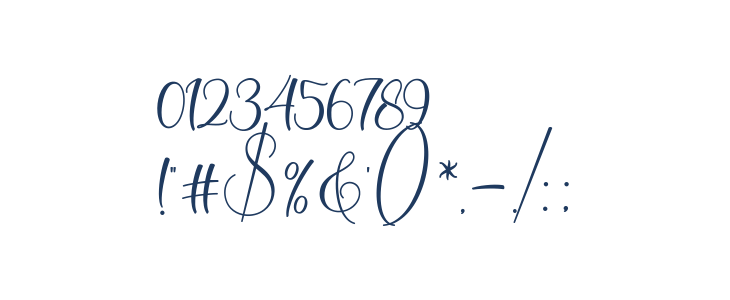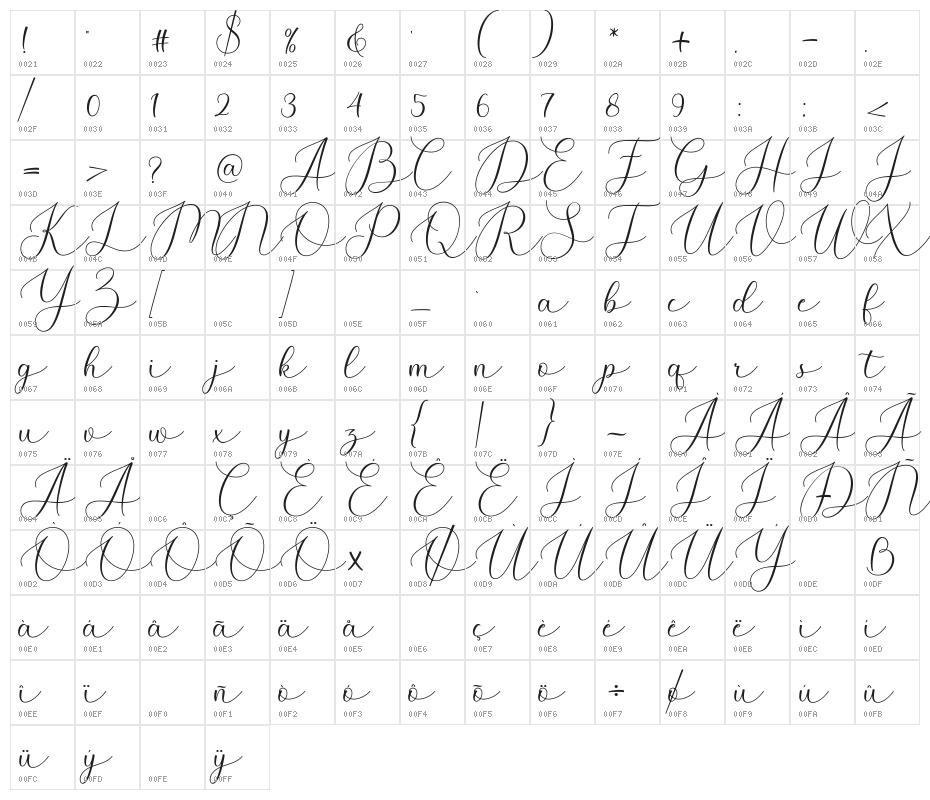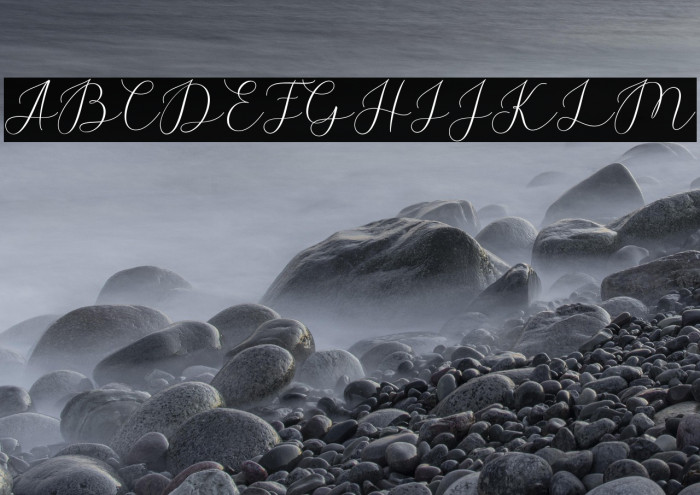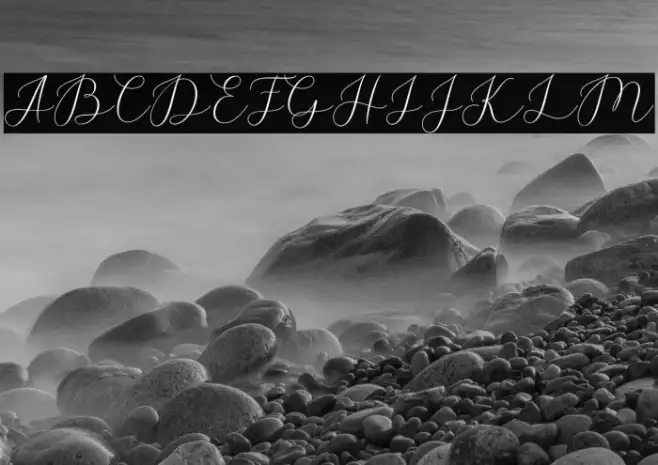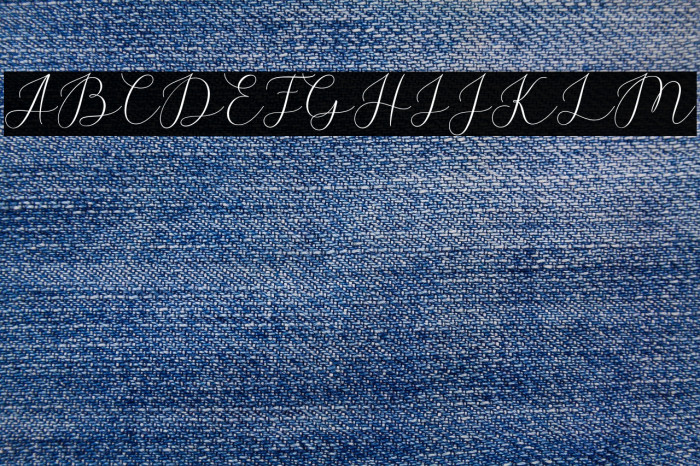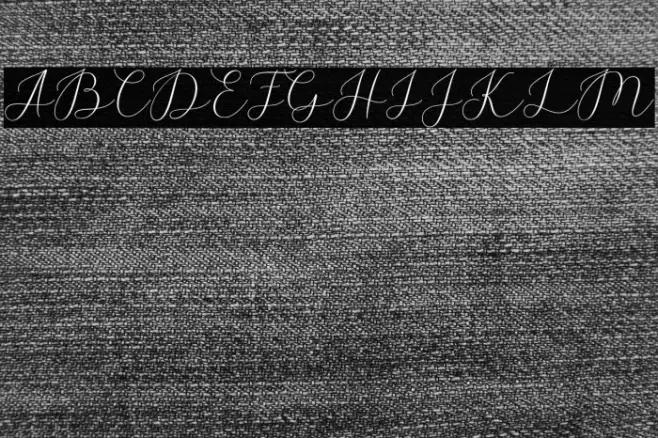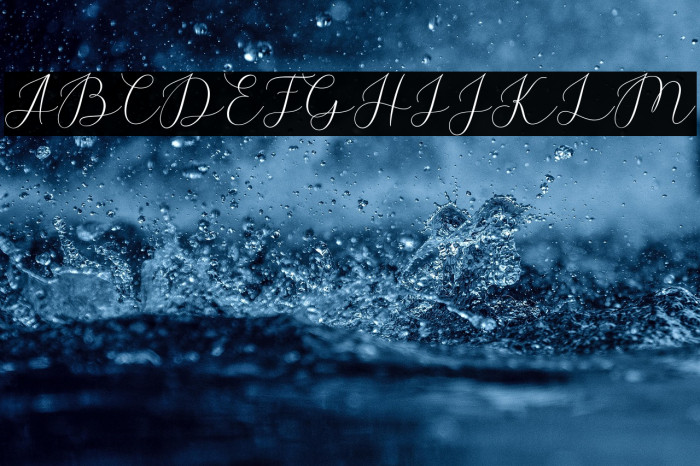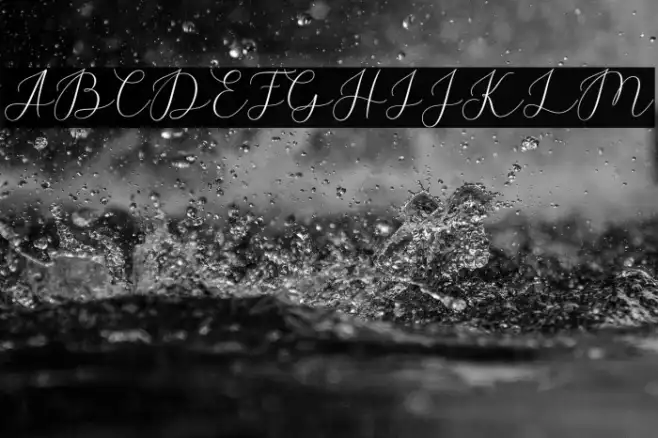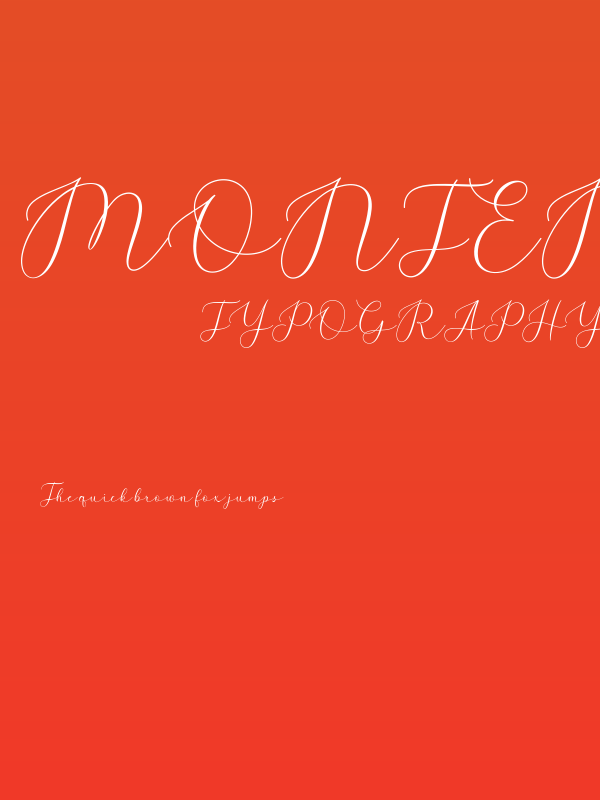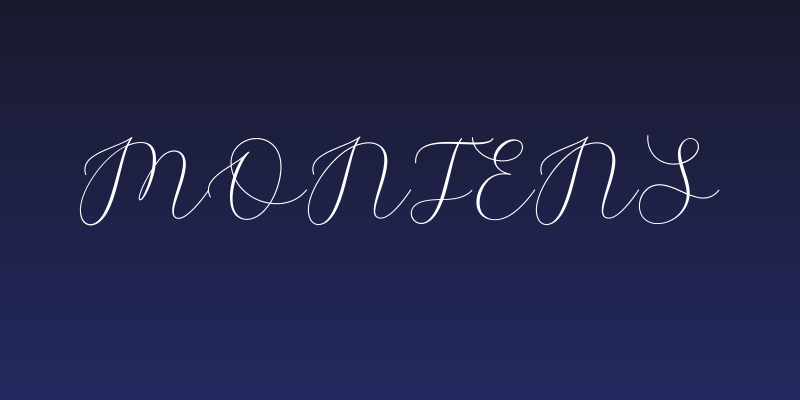
Montens Font
Montens Description
This elegant script font features a flowing, cursive style with smooth, connected strokes that mimic the fluidity of handwriting. The uppercase letters are gracefully elongated, while the lowercase letters maintain a consistent, rounded form. The numerals are stylishly curved, complementing the overall aesthetic. Special characters are designed with a creative flair, adding to the font's decorative appeal. This font exudes sophistication and charm, making it ideal for projects that require a personal touch.
| Proposed Projects | Ideal for wedding invitations, greeting cards, branding, and elegant packaging designs. |